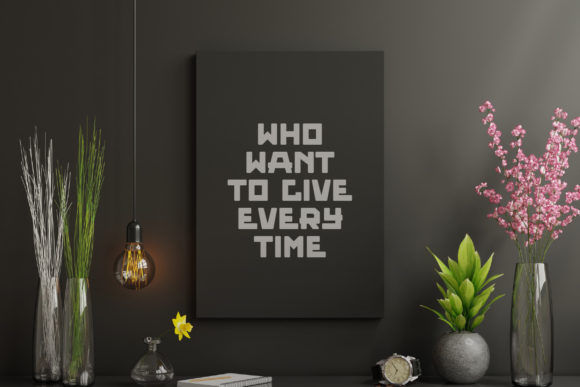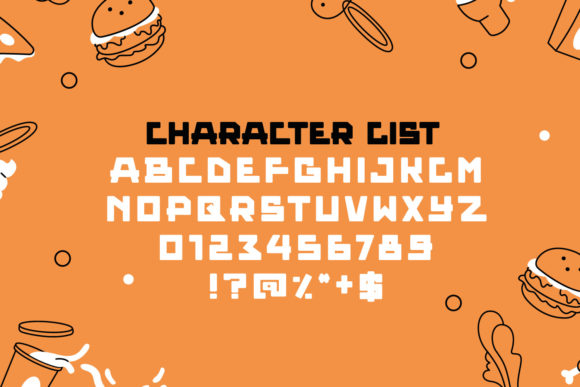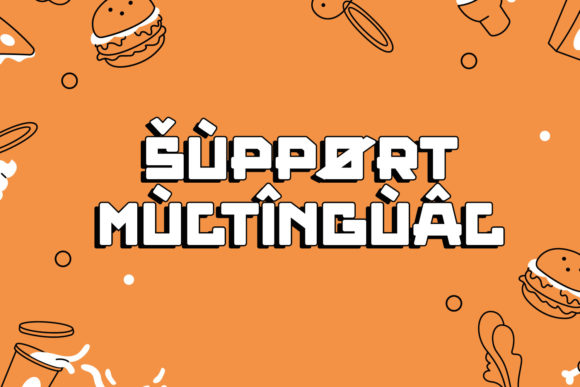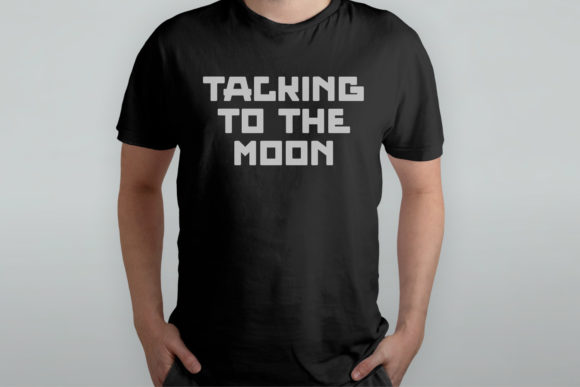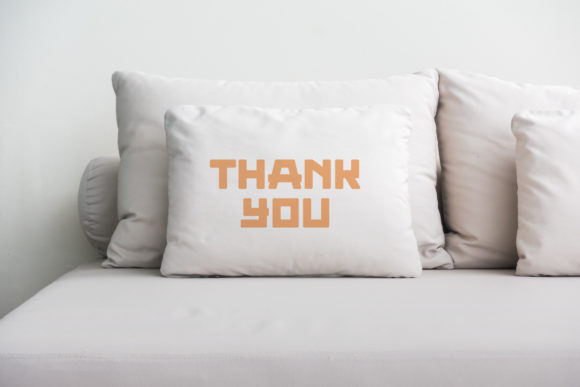
Breaking into the Future of Typography
Have you ever sat at your desk, staring at a blank canvas, and suddenly the perfect font appears in your mind? For designers, those epiphanies can be the spark that sets an entire project ablaze. And for us, that moment came when we stumbled upon the Break Fast Font – a bold, thick, and futuristic display font that’s about to revolutionize your designs.
Break Fast Font is more than just a font – it’s a statement piece. Ideal for web designs, business cards, and any project that demands a touch of the future, this font is sure to turn heads. Whether you’re a seasoned designer or just starting out, Break Fast Font is a valuable addition to your toolkit. With its unique style and versatility, the possibilities are endless.
Break Fast Font Key Features
- Unique Characteristics: Break Fast Font features a distinctive, modern sans-serif design with a focus on clean lines, geometric shapes, and subtle rounded edges.
- Kerning and Ligatures: Break Fast Font includes advanced kerning and ligature features, ensuring smooth text rendering and a professional appearance.
Break Fast Font Review
I recently had the chance to work with the “Break Fast Font” and here’s my honest review.
- The font is highly legible, making it perfect for body text.
- It’s a great choice for digital displays, as it’s clear and crisp.
- The font’s geometric shapes give it a modern and sleek feel.
- It’s a great choice for branding and marketing materials, especially for food and beverage companies.
- The font may not be the best choice for headlines, as it’s not particularly attention-grabbing.
- It’s not as versatile as some other fonts, and may not work well in certain design contexts.
- The font’s geometric shapes can make it feel a bit cold and sterile in certain situations.
Overall, I think the “Break Fast Font” is a solid choice for digital displays and body text. While it may not be the best choice for every design situation, it’s a great option for companies in the food and beverage industry. With a bit of creativity, I think this font can really shine.
Break Fast Font: A Practical Application Guide
Break Fast Font is a versatile font that works well for headings and titles in Canva projects.
Break Fast Font is a great choice for creating custom typography in Adobe Photoshop and Illustrator projects.
Break Fast Font is a great choice for creating engaging presentations and documents in PowerPoint and Word.
Some common use cases for Break Fast Font include:
- Custom typography
For best results, use Break Fast Font in conjunction with other design elements to create a cohesive and visually appealing design.